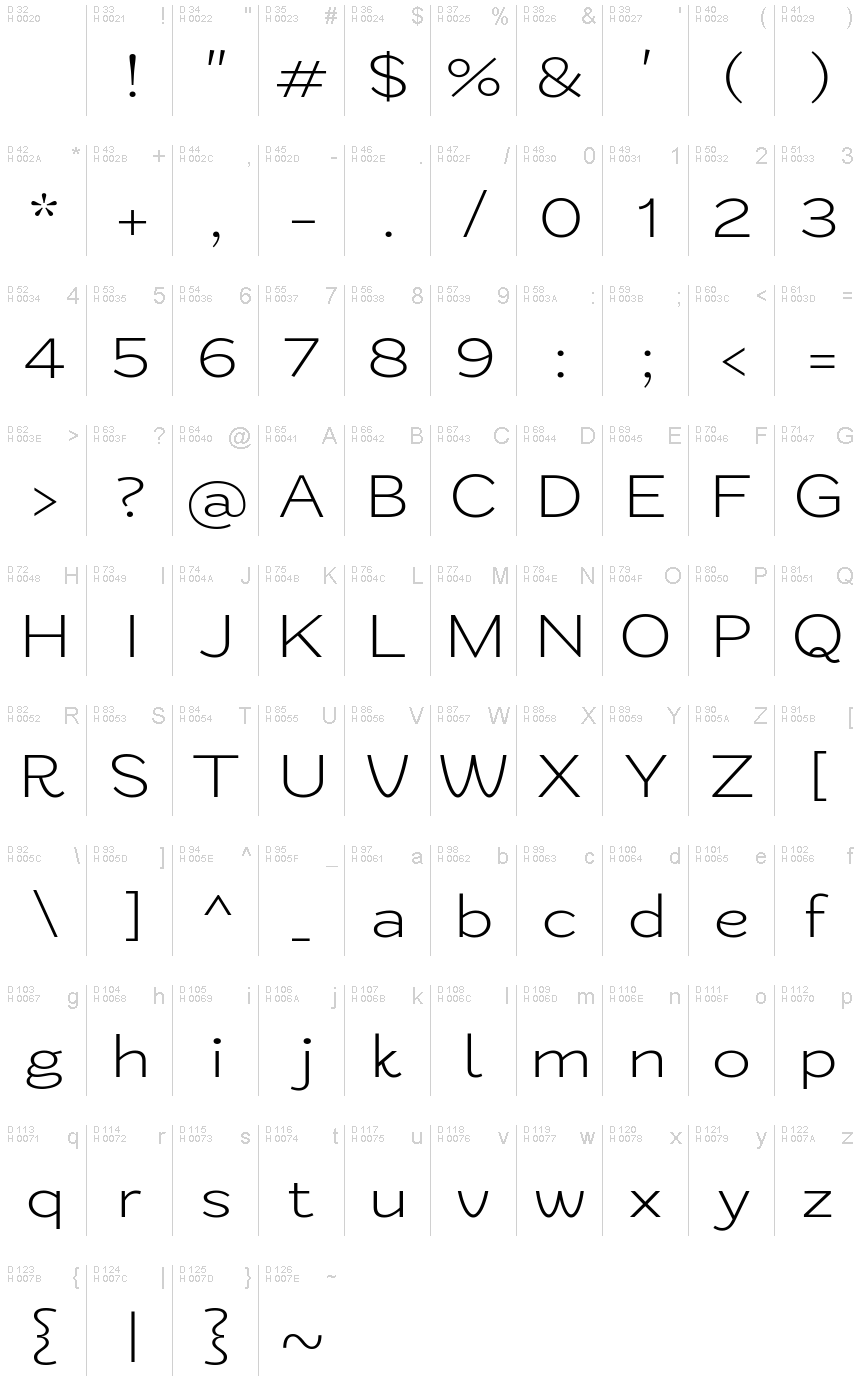
Zt Nezto DEMO Extra Light
Zt Nezto Extra Light, a captivating sans serif font by Khaiuns, brings an elegant and refined aesthetic with its light weight and expanded width. This typeface stands out for its smooth curves and harmonious design, especially crafted to seamlessly integrate challenging letters like W and V with other characters. The result is a unified, sophisticated look that adds a touch of modernity and grace to any project.
Ideal for high-end branding, editorial design, or minimalist layouts, Zt Nezto Extra Light's unique characteristics make it an excellent choice for designers aiming to convey elegance and innovation in their work.